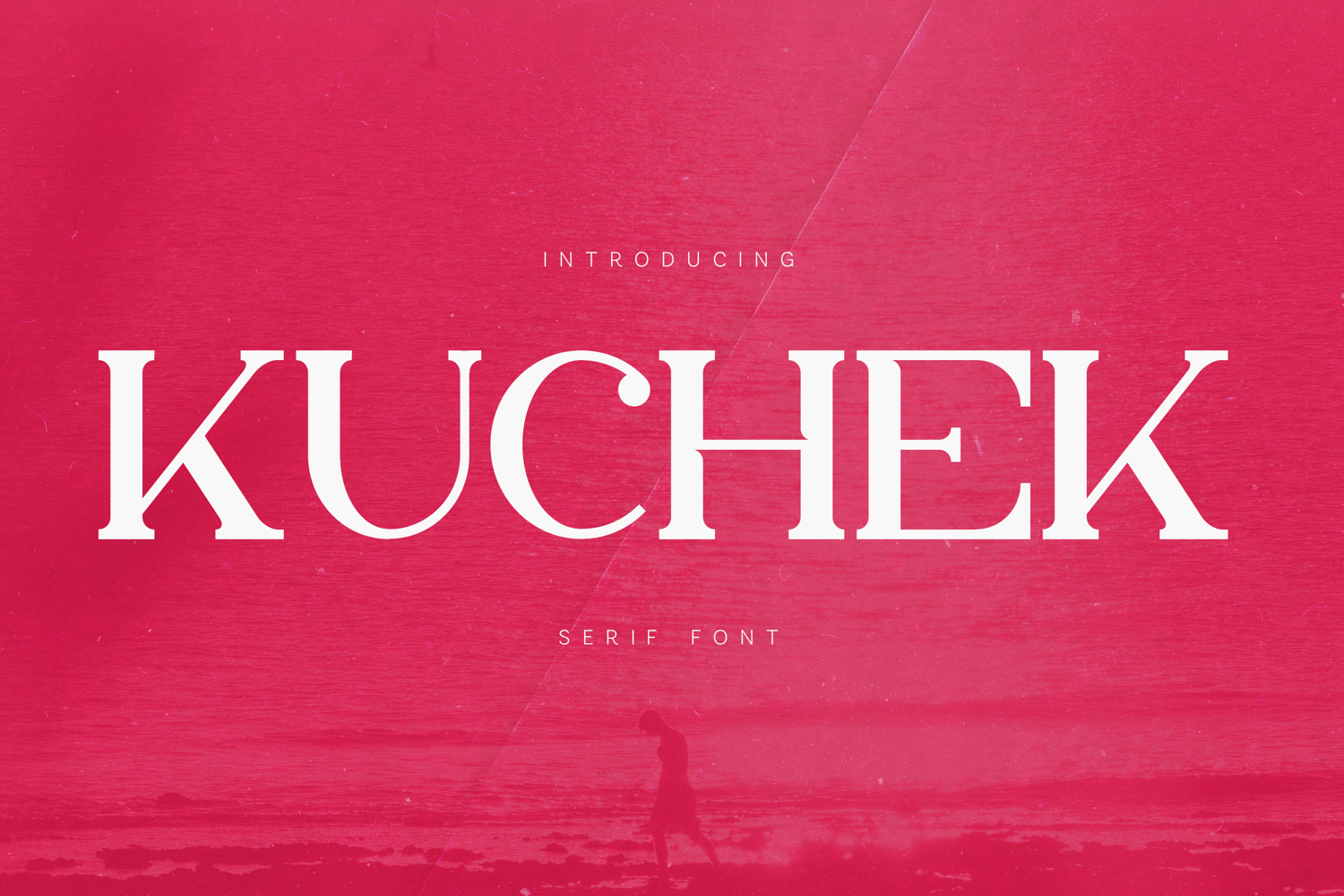
Kuchek Elegant Modern Serif Font
Kuchek is a refined modern serif typeface that blends classic elegance with contemporary design precision. The font is built with balanced proportions, smooth curves, and distinctive serif details that give the letterforms a timeless yet modern appearance. Its carefully crafted structure creates a sophisticated typographic voice suitable for high-end design, editorial compositions, and modern branding systems.
The design of Kuchek focuses on clarity and elegance. Each character features clean strokes and refined serif shapes that create a harmonious visual rhythm across words and sentences. Subtle contrast between thick and thin strokes gives the typeface depth while maintaining excellent readability at both large and medium display sizes.
Kuchek carries the visual elegance often associated with classic editorial typography while maintaining a fresh and modern character. The graceful serif details and balanced spacing allow the typeface to work beautifully in headlines, magazine layouts, luxury branding, packaging design, book covers, posters, and sophisticated typography compositions.
The typeface includes uppercase letters, lowercase letters, numerals, punctuation, and extended multilingual characters, allowing designers to create consistent typography across many languages. The expanded character set supports a wide range of European languages, making Kuchek suitable for international design work and global branding projects.
With its elegant serif construction and contemporary design balance, Kuchek provides a versatile typographic solution for designers looking to create refined titles, modern editorial layouts, and sophisticated branding visuals.